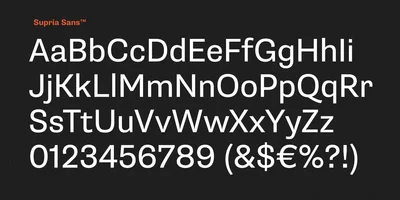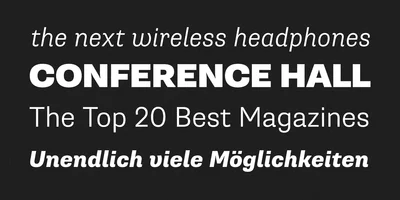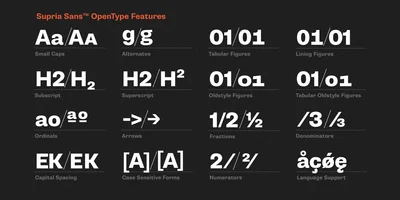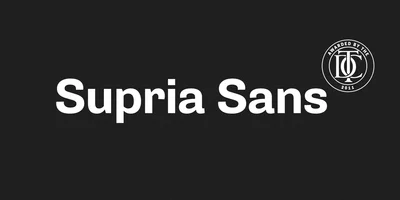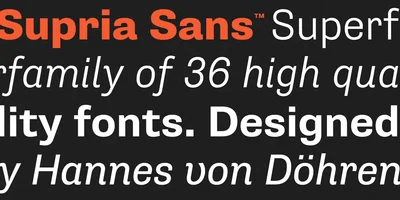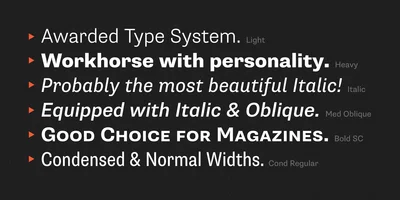
Supria Sans vs Syntax
Supria Sans and Syntax are both sans-serif typefaces sharing a humanist foundation. Where Supria Sans leans display, modern, Syntax brings script. Compare which suits your Editorial project.
Supria Sans
Humanist
ElegantModern
Display
Syntax
HumanistScript
Elegant
Feature Supria Sans Syntax
Classification sans-serif sans-serif
Weights Multiple Multiple
Italics Yes Yes
Language Support latin, latin-extended latin, latin-extended
Display & Headlines
Headlines
Corporate
Book Design
Recommended: Supria Sans
• display, modern design character
• Suited for Display and Headlines
Consider: Syntax
• script design character
• Suited for Corporate and Books